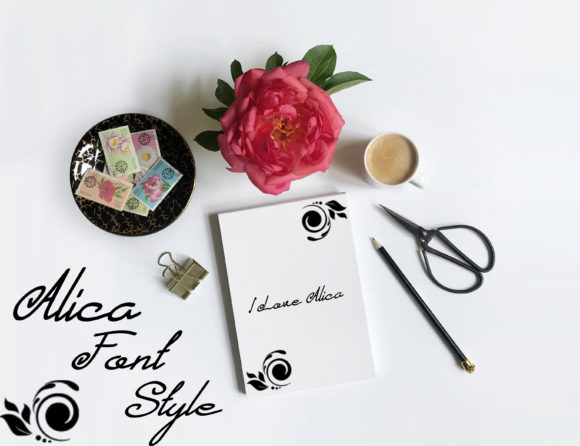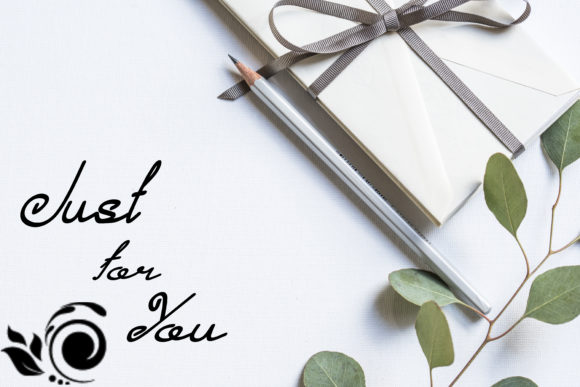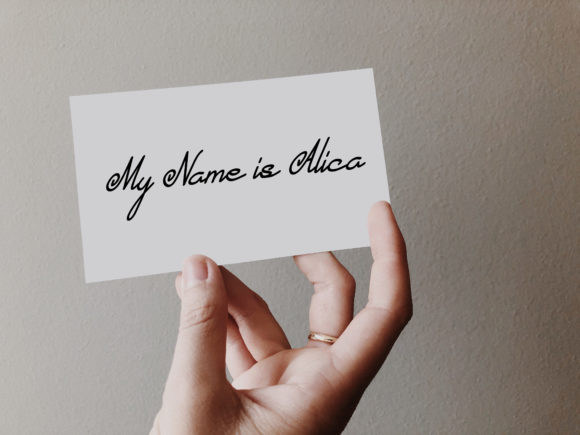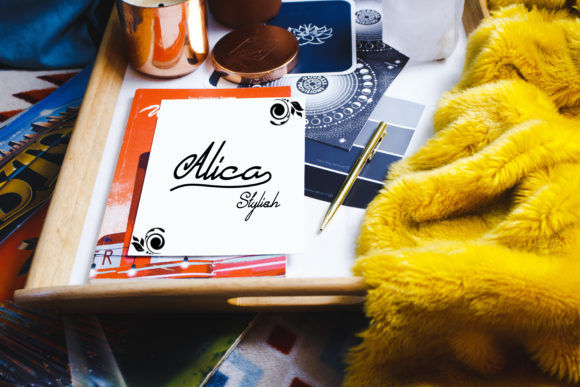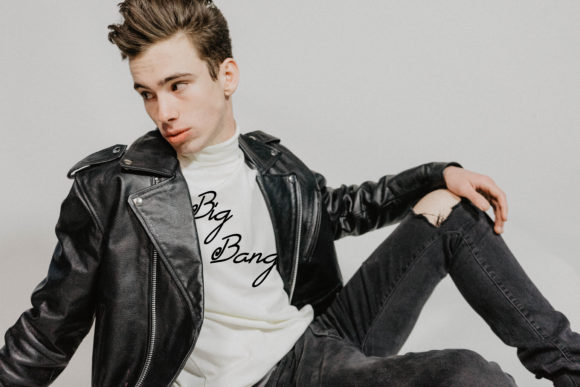
HomeScript FontsAlica Font Script Fonts Alica Font FacebookXPinterestWhatsApp Alica Font Poster 2 Alica Font Poster 3 Alica Font Poster 4 Alica Font Poster 5 Alica Font Poster 6 About Alica Font Alica is a calm and beautiful handwritten font with authentic swashes. Get inspired by its timeless appeal! DOWNLOAD ON CREATIVE FABRICAThis font is sold and delivered by Creative Fabrica. Font Canyon may earn a commission if you buy through this link. People also explored Edrosa Font Milano Font Hello Sunday Font Sprightly Font Tokushima Arigatou Font Reulee Font Tile8 Pattern Font Arabella Font Readable Font 286 0 TagsAlica Font Previous articleBellanaisa FontNext articleRoyal Muffin Font LEAVE A REPLY Cancel reply Comment: Please enter your comment! Name:* Please enter your name here Email:* You have entered an incorrect email address! Please enter your email address here Website: Save my name, email, and website in this browser for the next time I comment. Personal Use Free Carrolina Personal Use Free Read more about this font BD AsciiMax Personal Use Free Read more about this font Stereofidelic Personal Use Free Read more about this font Sea Gardens Personal Use Free Read more about this font BLOG To increase your work productivity, choose the most readable fonts. In today's fast-paced work environment, where digital communication and information consumption are integral to our daily routines, the choice of fonts can significantly impact... Top 10 Handwritten Fonts That Elevate Your Designs Where to Buy American Fonts Online in 2024 Best Fonts for T-Shirt Design – Top 2025 Picks